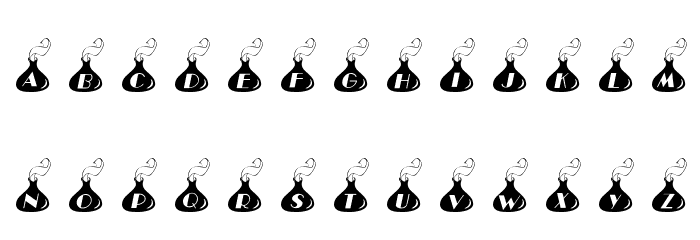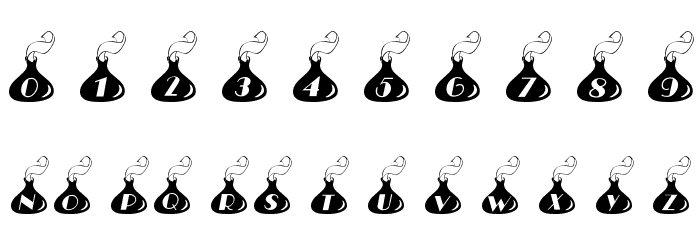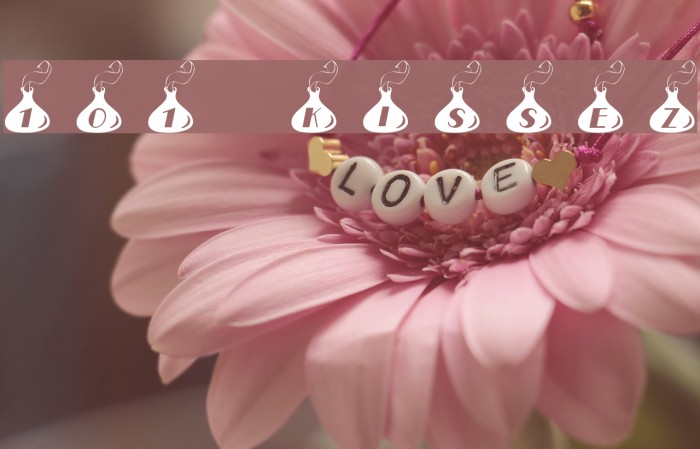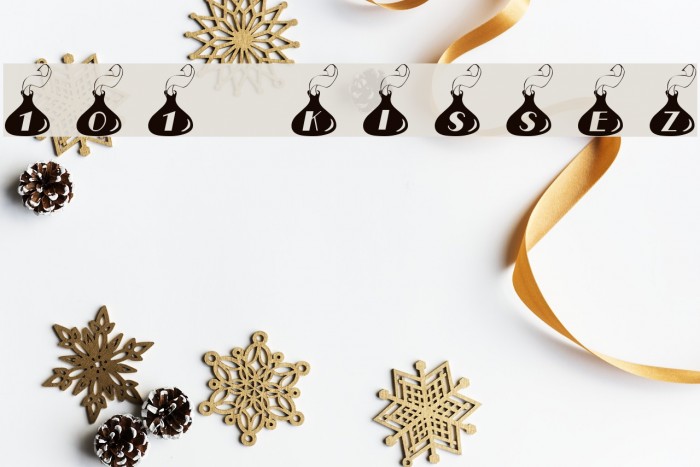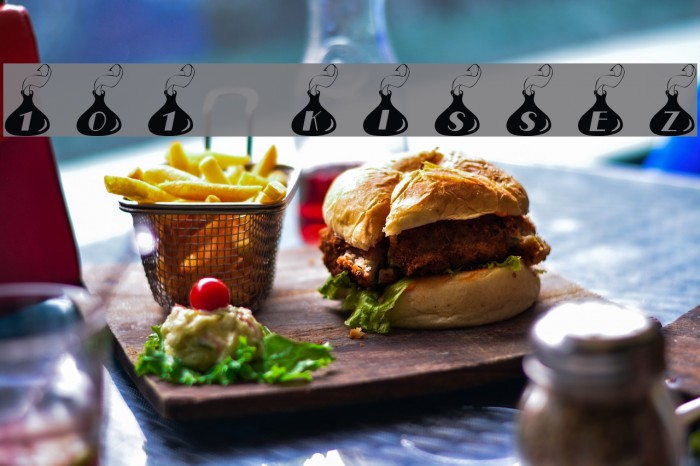
101! KisseZ Font
This playful and whimsical font features each character enclosed within a stylized candy wrapper shape, reminiscent of a classic chocolate kiss. The letters are bold and prominently displayed in white against a dark background, creating a striking contrast. The unique design adds a fun and lighthearted touch, making it ideal for projects that require a sense of humor or a playful aesthetic. The font maintains a consistent style across uppercase, lowercase, and numerical characters, ensuring versatility in various design applications.
A playful font with characters inside candy wrapper shapes, offering a whimsical and fun design.
- Proposed Projects: Ideal for children's book covers, candy packaging, playful event invitations, or any project seeking a fun and whimsical touch.
- Overall Style: Playful, Whimsical
- Use Case: Logos, Packaging, Invitations